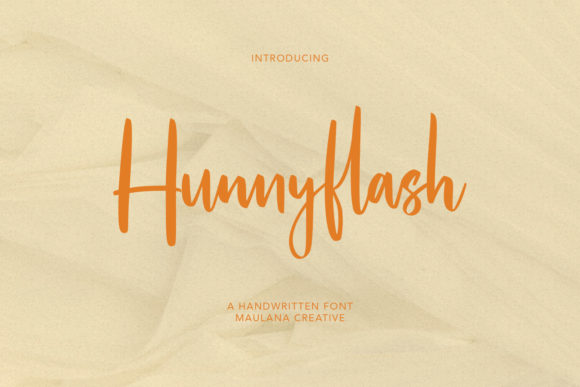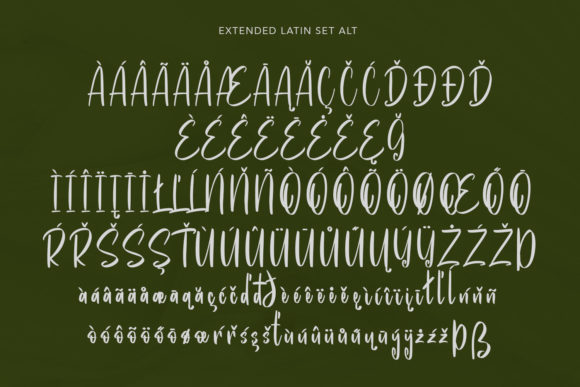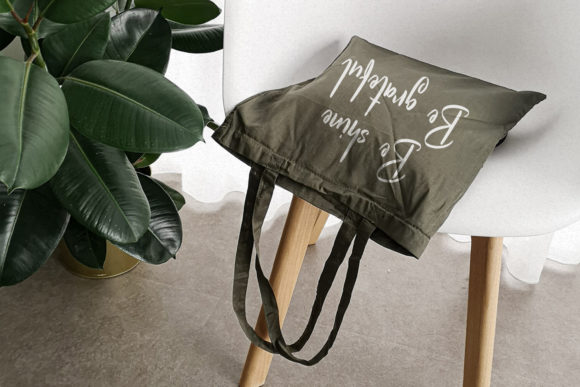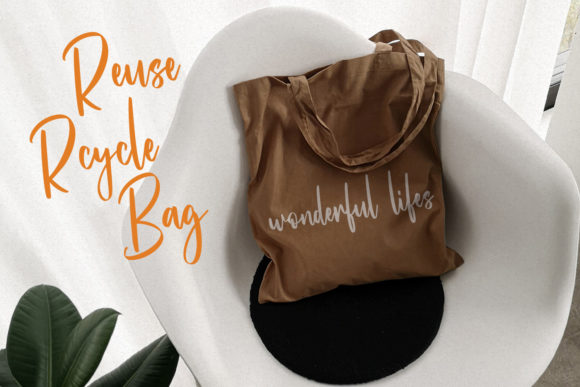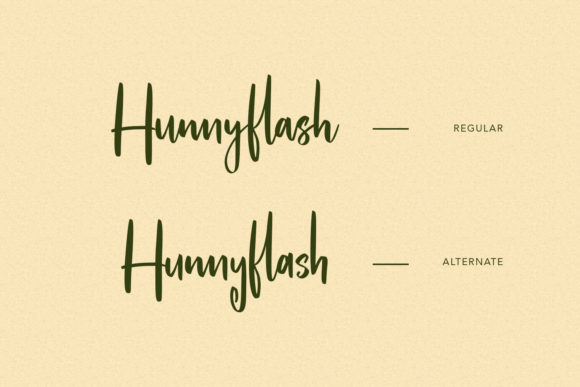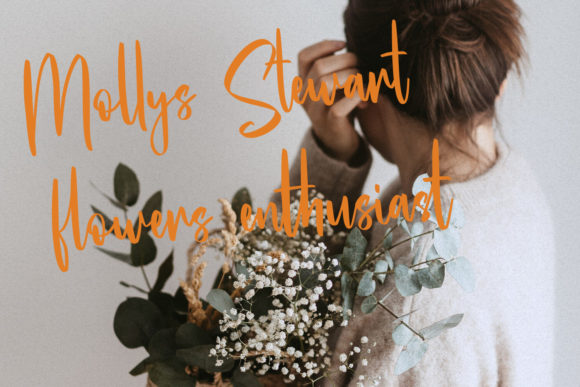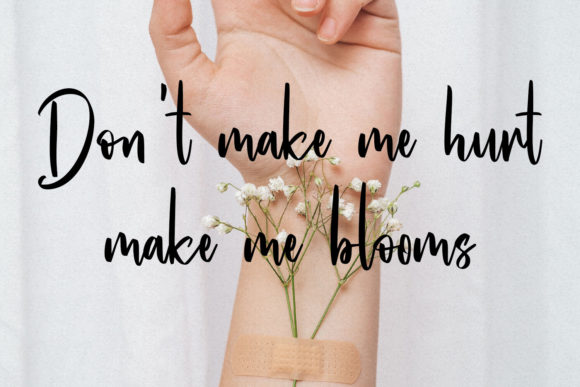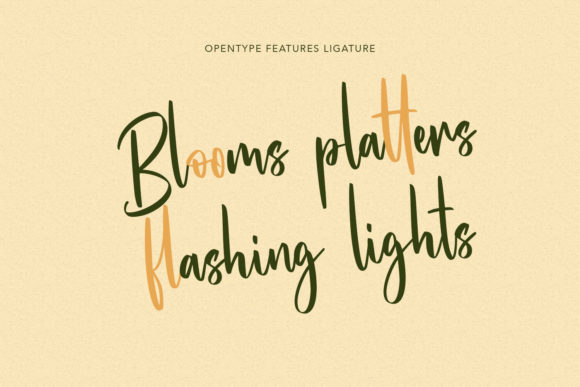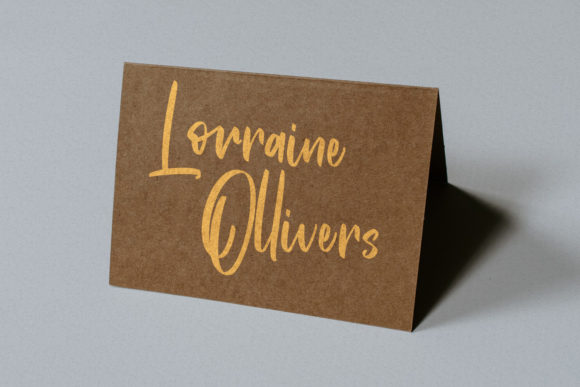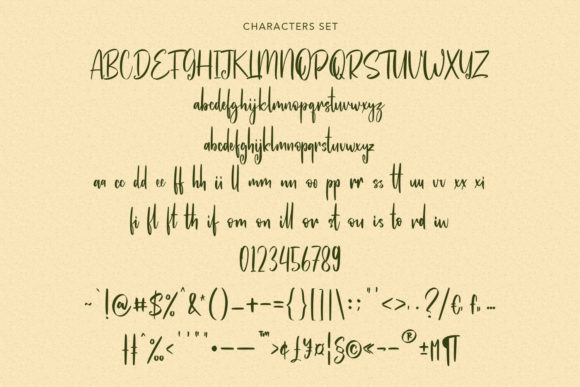
Hunnyflash Font
About Hunnyflash Font
Hunnyflash is a dazzling script font that captivates with its intricate details and carefully crafted design. This font is a valuable asset to your font library, capable of enhancing any creation, regardless of the topic.
The exquisite letterforms of Hunnyflash exude a sense of elegance and charm. Its stylish appearance and flowing strokes add a touch of sophistication to your designs. Whether you’re working on invitations, branding materials, social media graphics, or any other project, Hunnyflash brings a dazzling and eye-catching quality.
The attention to detail in the crafting of Hunnyflash is evident in every curve and swirl. Each letter is meticulously designed to create a harmonious composition, ensuring a high level of precision and beauty. The font’s detailed elements showcase its quality and make it a standout choice for typographic compositions.
Hunnyflash is a versatile font that can seamlessly adapt to various design styles and themes. Whether your project is whimsical and playful or elegant and luxurious, this font effortlessly enhances the overall visual impact. Its potential to elevate any creation makes it a valuable asset for designers.
In summary, Hunnyflash is a dazzling script font that adds a touch of elegance and charm to any creation. With its meticulously crafted design and intricate details, it is a valuable addition to your font library. Embrace the beauty of Hunnyflash and let it enhance your designs with its stylish and detailed flair.